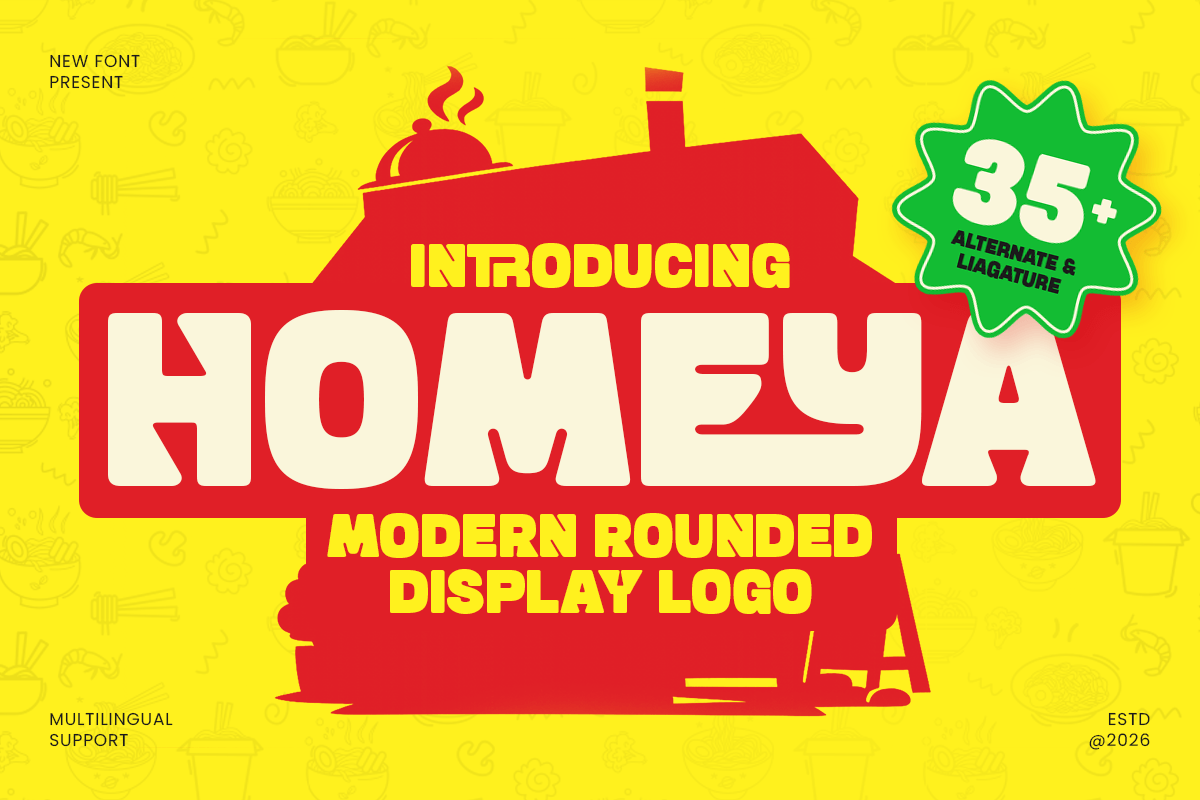
Homeya
-Modern Rounded Display Logo FontHomeya - Modern Rounded Display Logo Font
HOMEYA is a modern rounded display logo font designed to bring softness, clarity, and friendly confidence to your typography. With smooth rounded forms, balanced proportions, and a clean display rhythm, this typeface creates a warm modern tone that feels approachable, stylish, and instantly brand-ready.
Built for logo-focused and headline-driven design, HOMEYA works beautifully across wordmarks, brand identity systems, packaging, labels, website headers, posters, signage, social media graphics, presentations, and promotional visuals. Its rounded structure keeps every composition readable while adding a soft, memorable personality across both digital and print layouts.
Whether you’re building a friendly startup identity, creating cute product branding, designing clean packaging, or crafting playful modern campaigns, HOMEYA provides a rounded display foundation that makes your typography feel fresh, welcoming, and unforgettable.
Inspiration Behind HOMEYA
HOMEYA is inspired by modern rounded typography and friendly brand systems—where soft shapes, clean spacing, and approachable rhythm create trust and warmth. The design focuses on smooth curves and display clarity to support playful logos, cheerful headlines, and contemporary identity design.
HOMEYA Font Features:
Modern rounded display letterforms optimized for logo and branding design
Soft friendly structure for approachable visual identity
Strong readability for headlines, packaging, and promotional layouts
Smooth rounded shapes with clean contemporary character